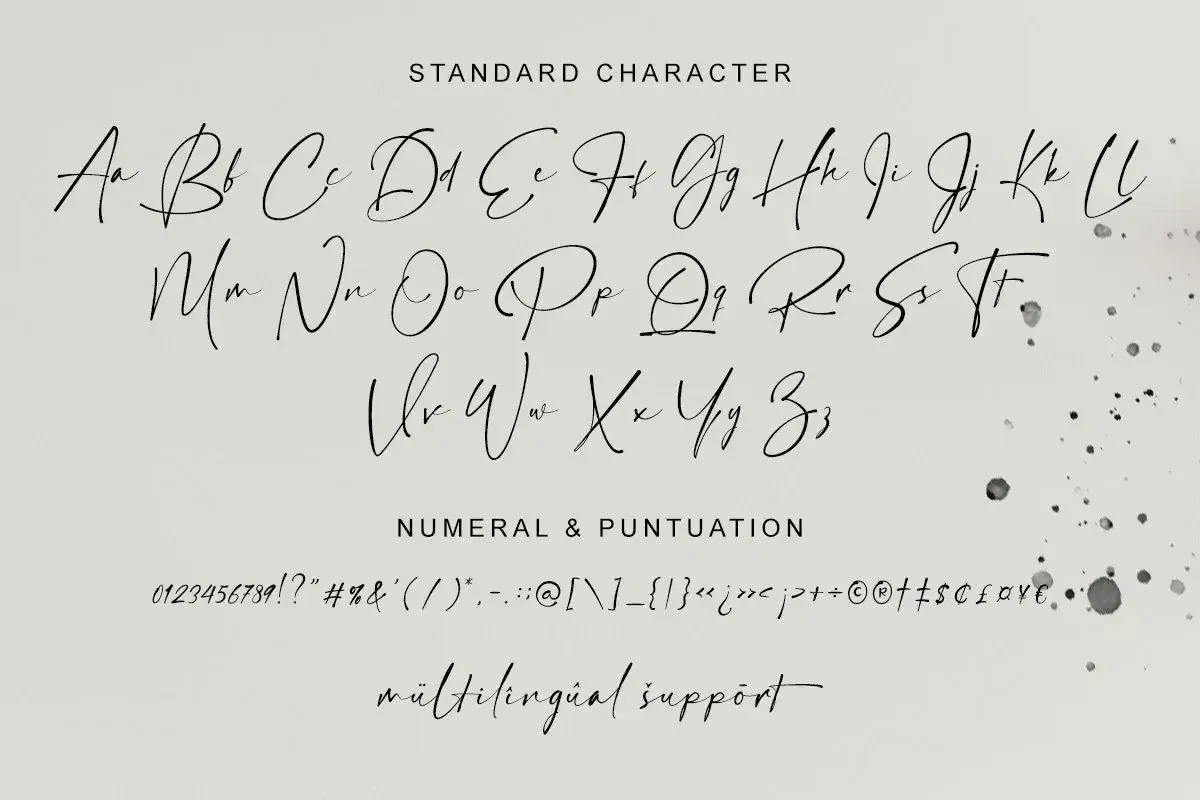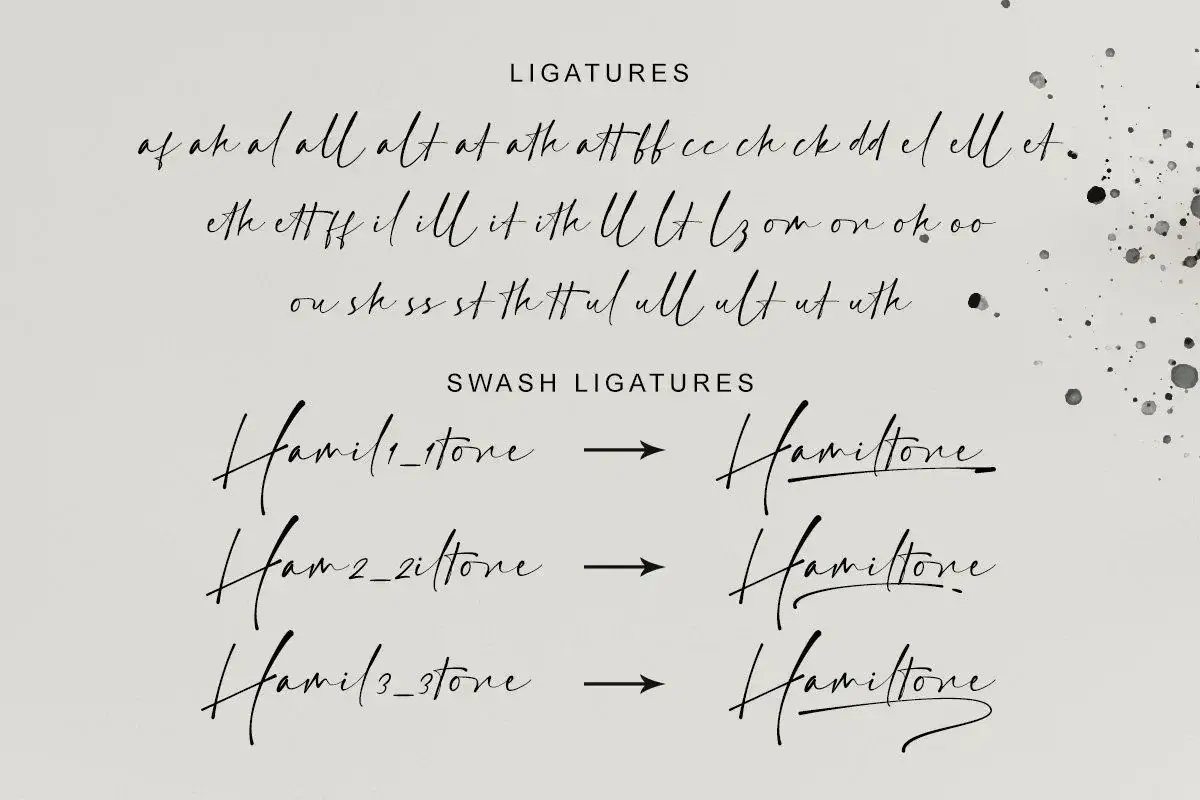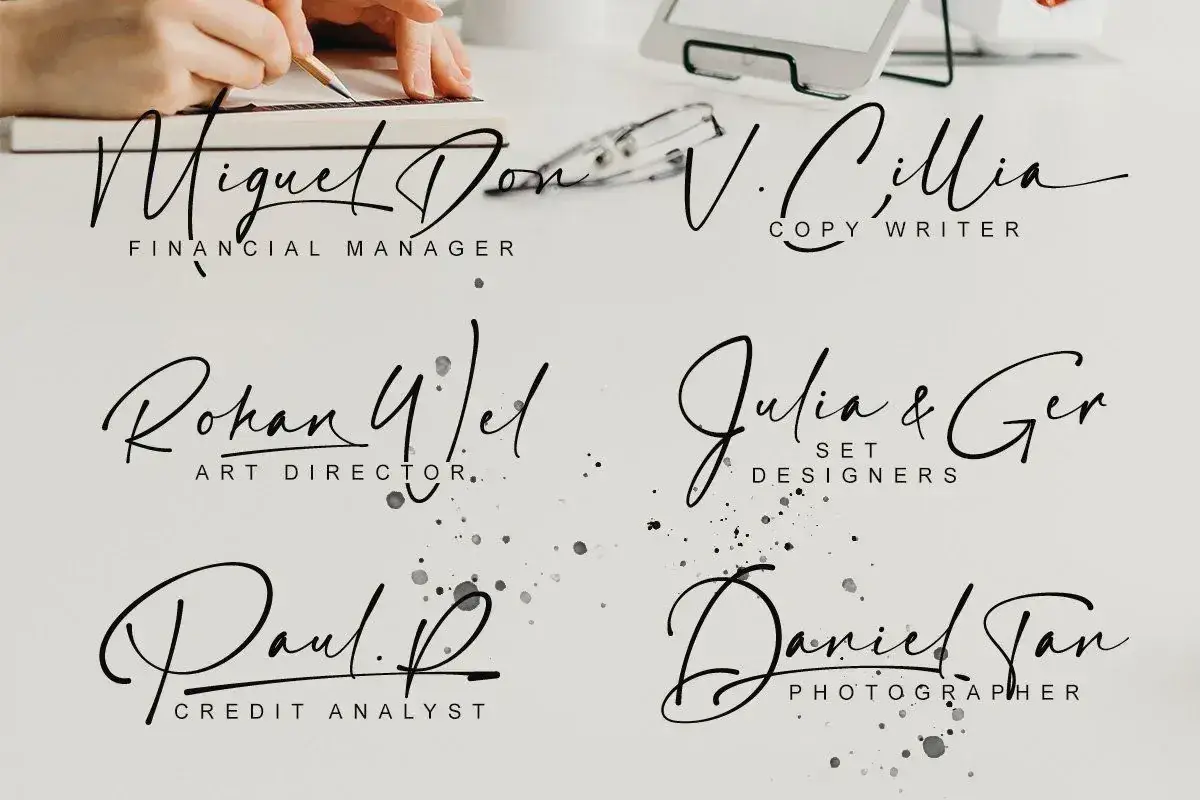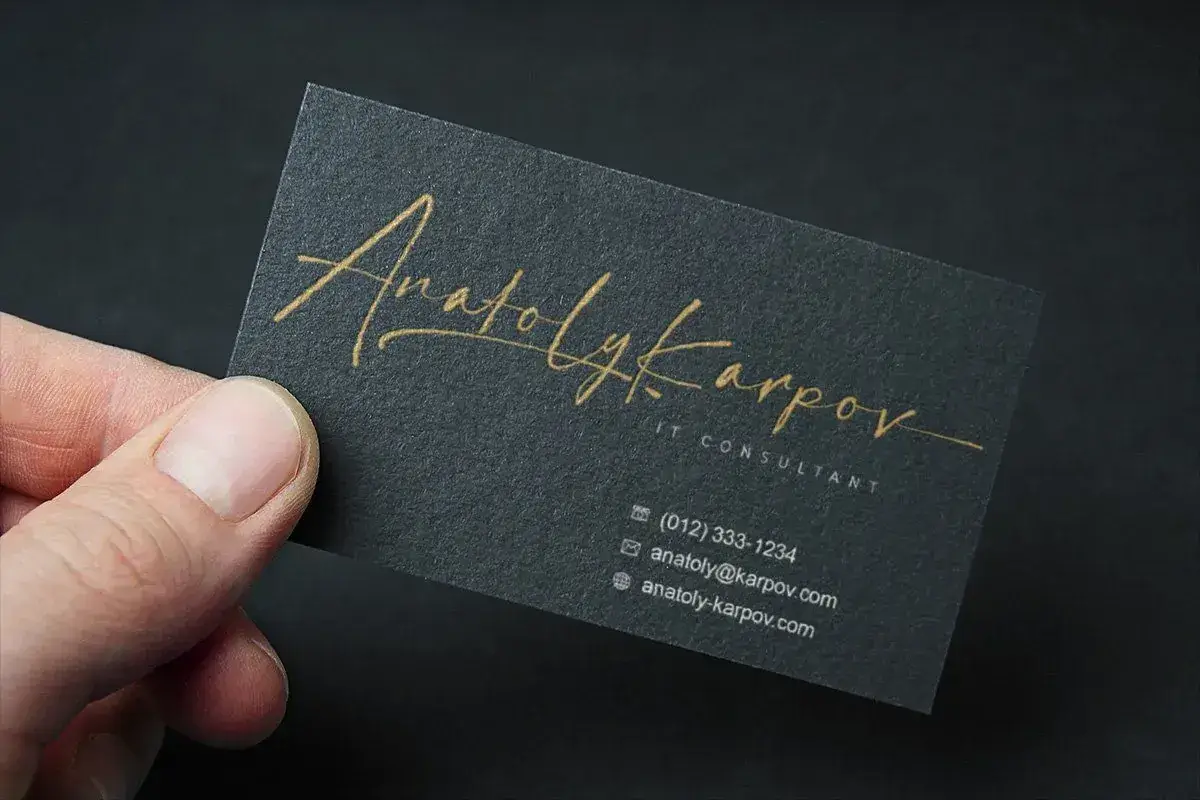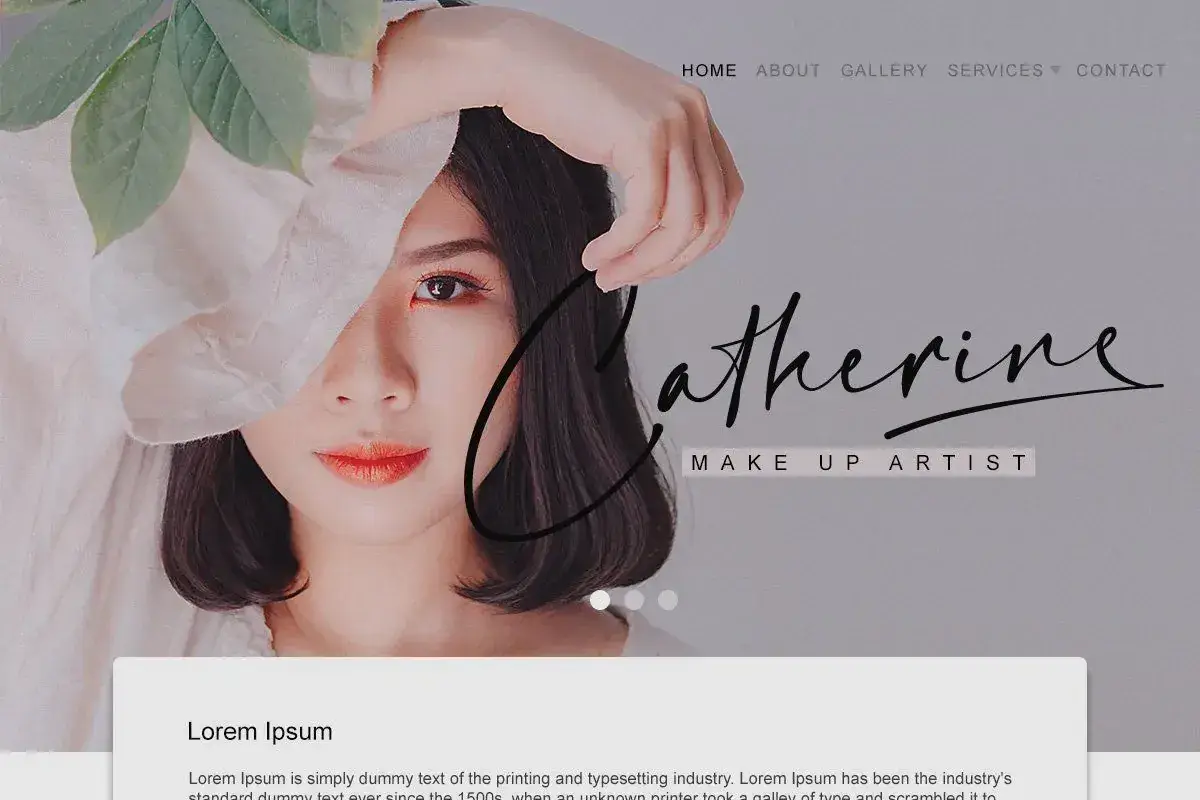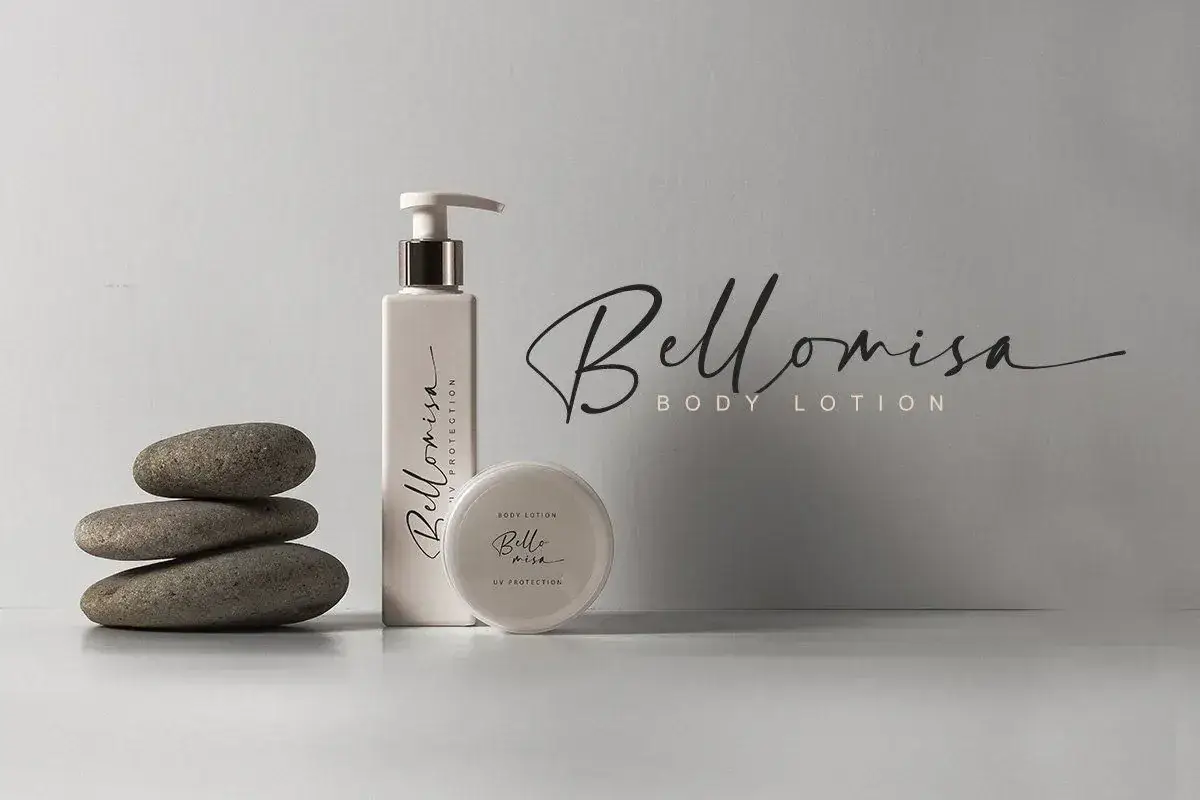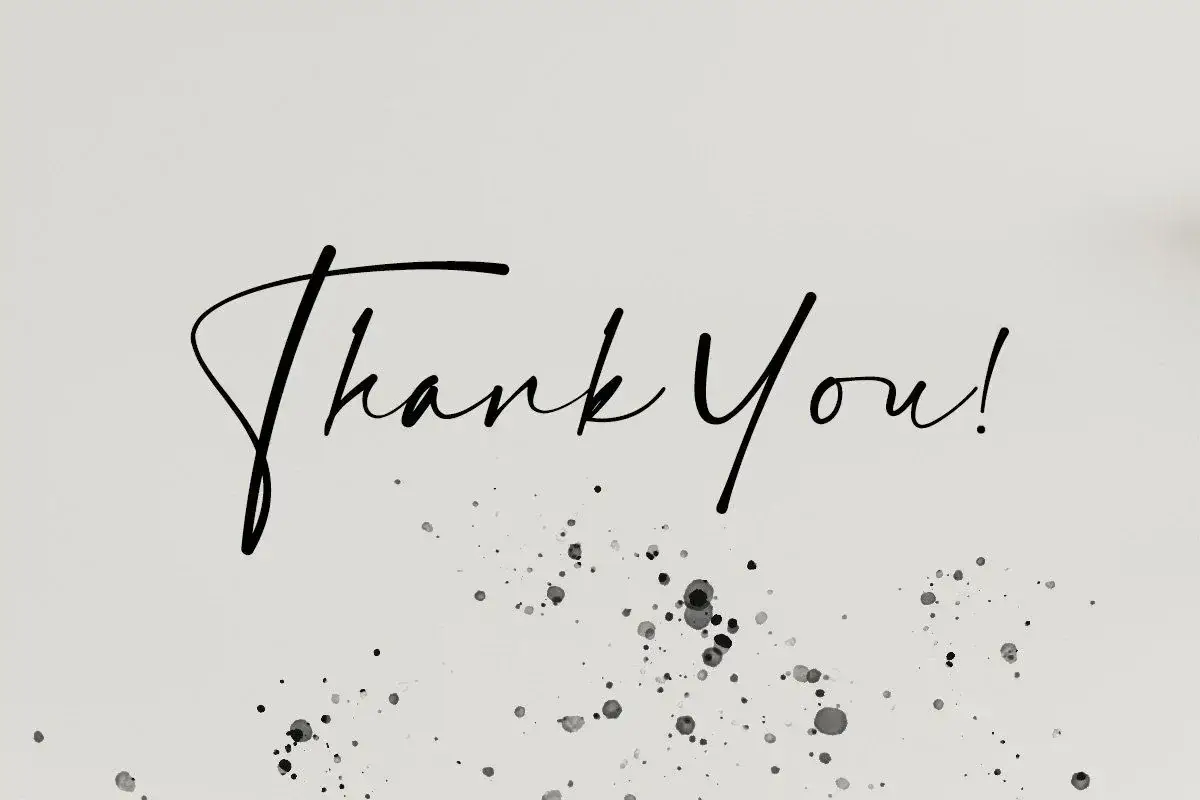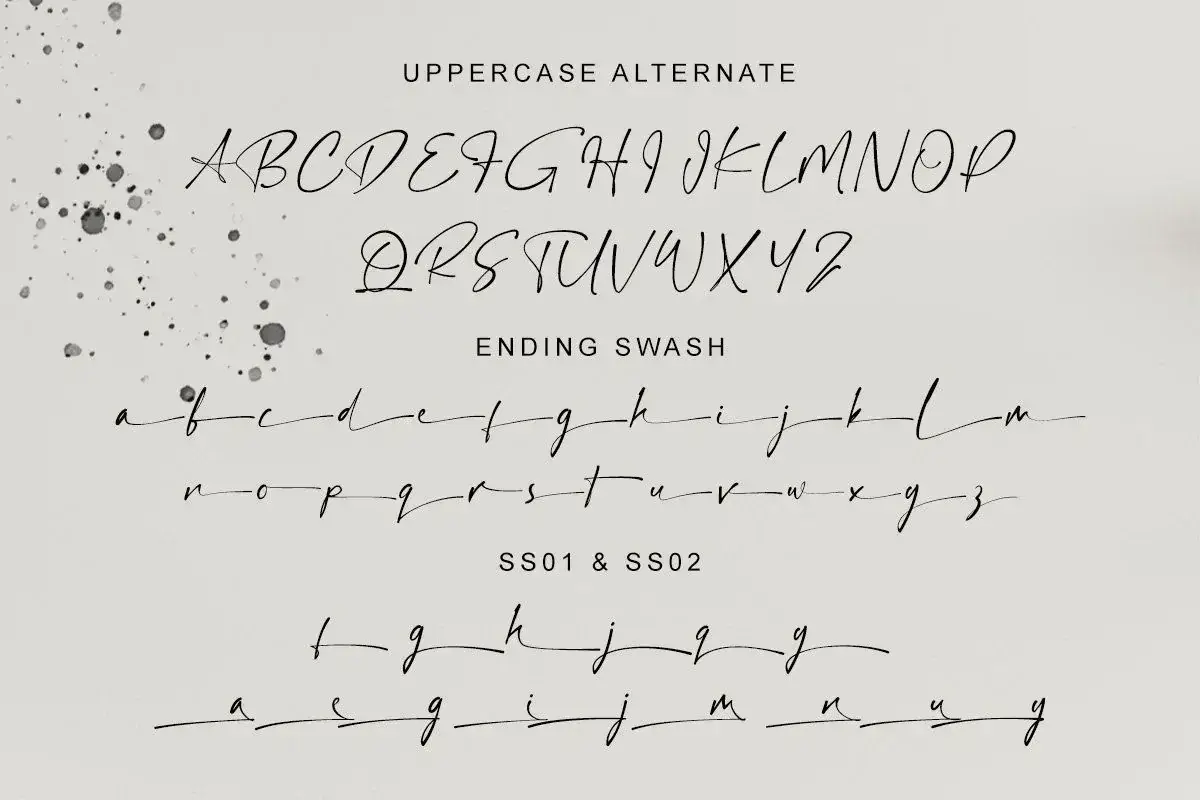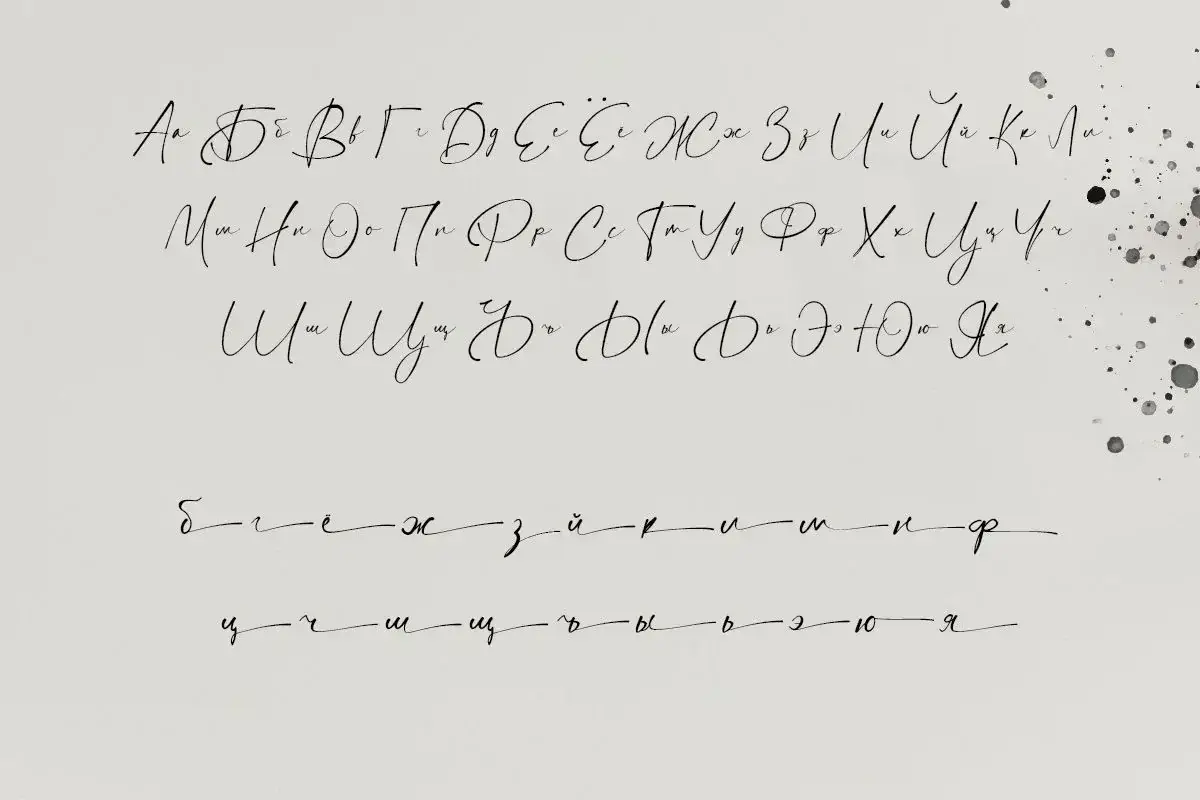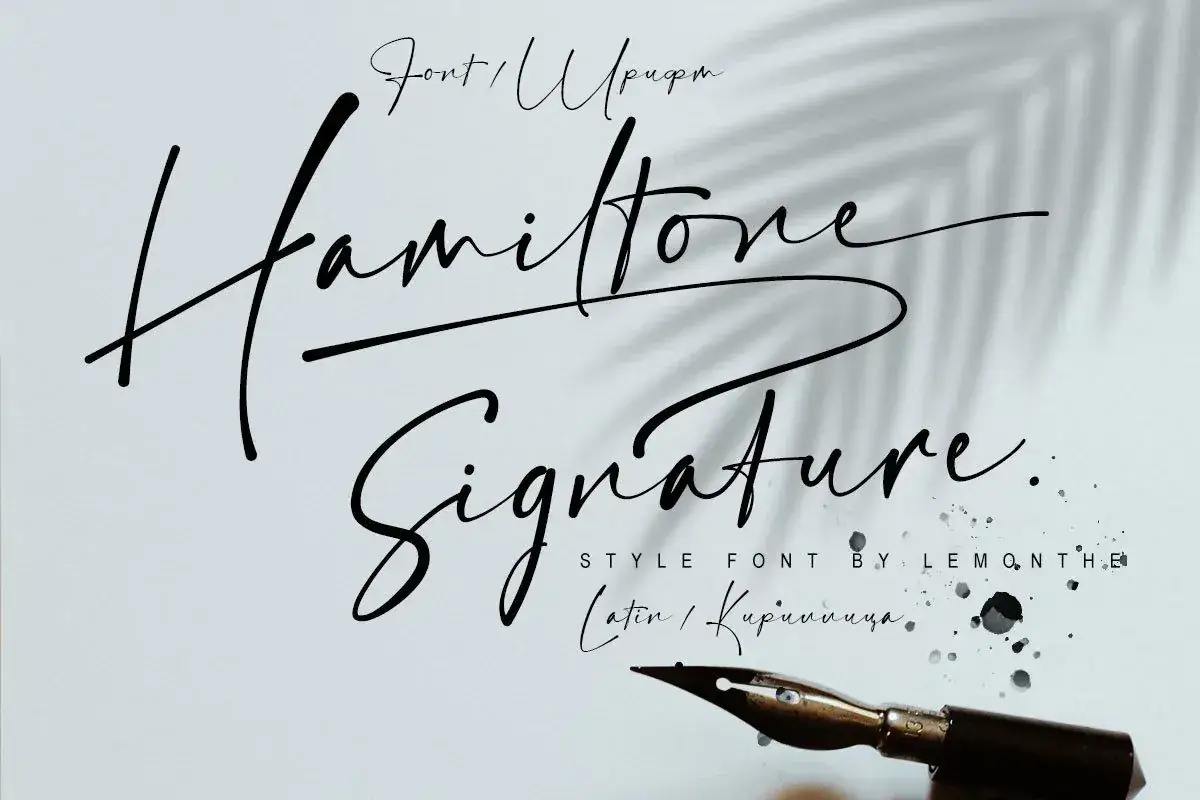
Hamiltone | Luxury Signature Font
Introducing Hamiltone, a luxury signature font that adds elegance and sophistication to your creative projects. Whether you’re designing wedding invitations, crafting stunning stationery, or enhancing your social media posts, Hamiltone is the perfect choice for a refined touch.
Hamiltone is designed for creatives who appreciate the art of beautiful typography. Its unique style makes it ideal for various applications, including product packaging, greeting cards, and more. Elevate your designs with this exquisite font that embodies modern luxury.
- ✅ Ligatures → Create seamless connections between letters for a more polished look.
- ✅ Swash → Add flair to your typography with decorative swashes that enhance visual appeal.
- ✅ Stylistic Set → Choose from various stylistic options to customize your text.
- ✅ Alternate Characters → Access alternative letterforms for added creativity in your designs.
- ✅ Uppercase and Lowercase Letters → Full alphabet support for comprehensive text design.
- ✅ Numbers and Punctuation → Complete numeric and punctuation set for functional typography.
- ✅ Multilingual Support → Perfect for global projects with support for multiple languages.
Why Choose Hamiltone?
Hamiltone stands out with its luxurious design and versatility, making it a favorite among designers and brands aiming for a sophisticated look. Trusted by professionals worldwide, this font not only enhances your projects but also reflects your commitment to quality and style.